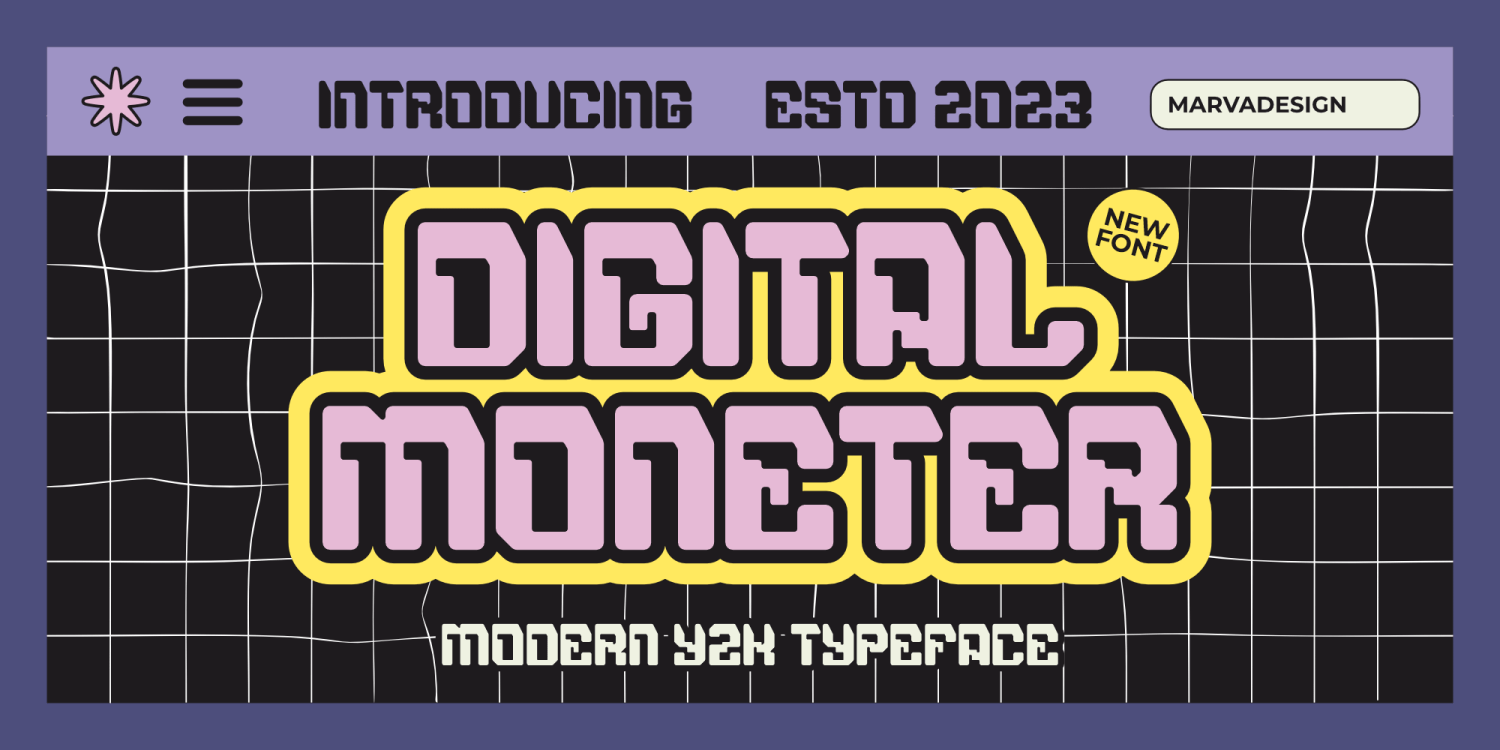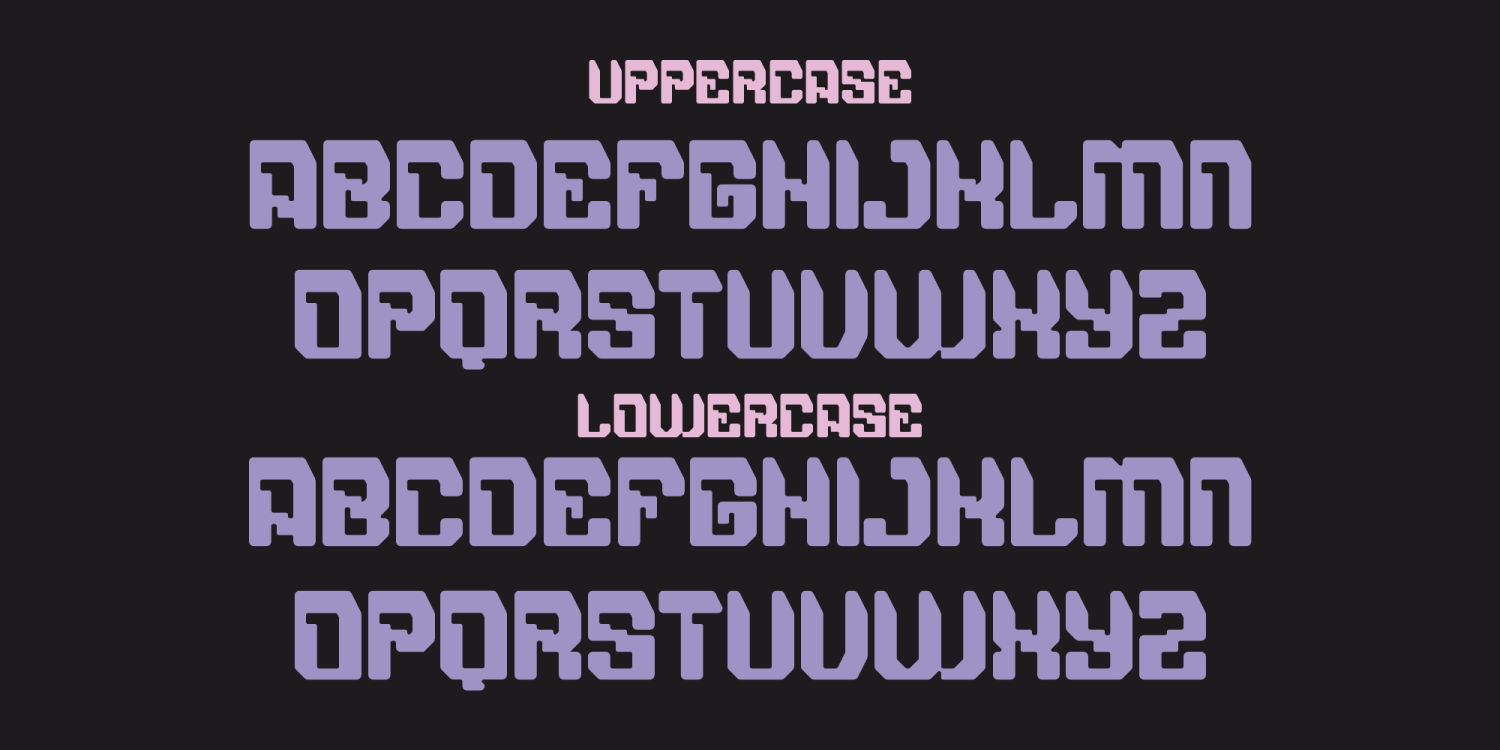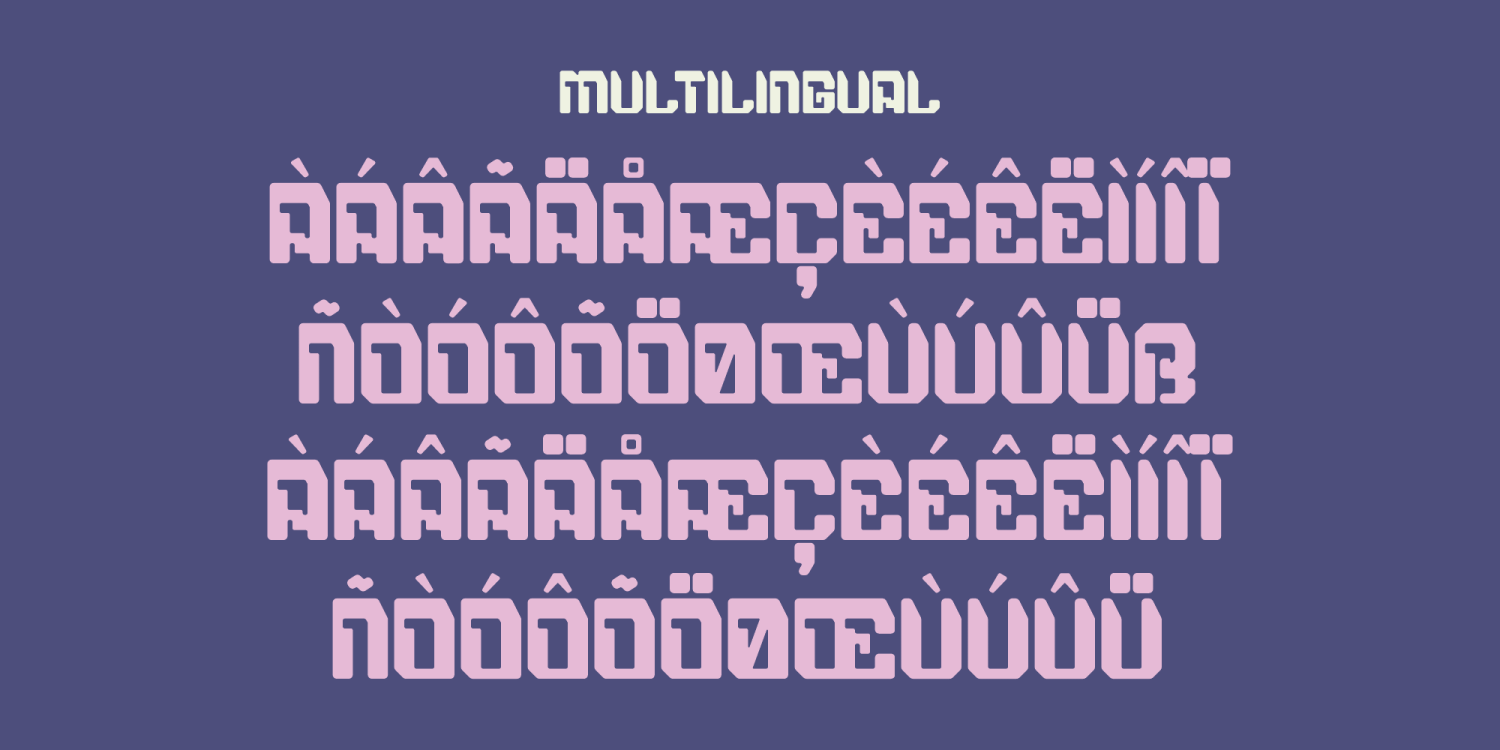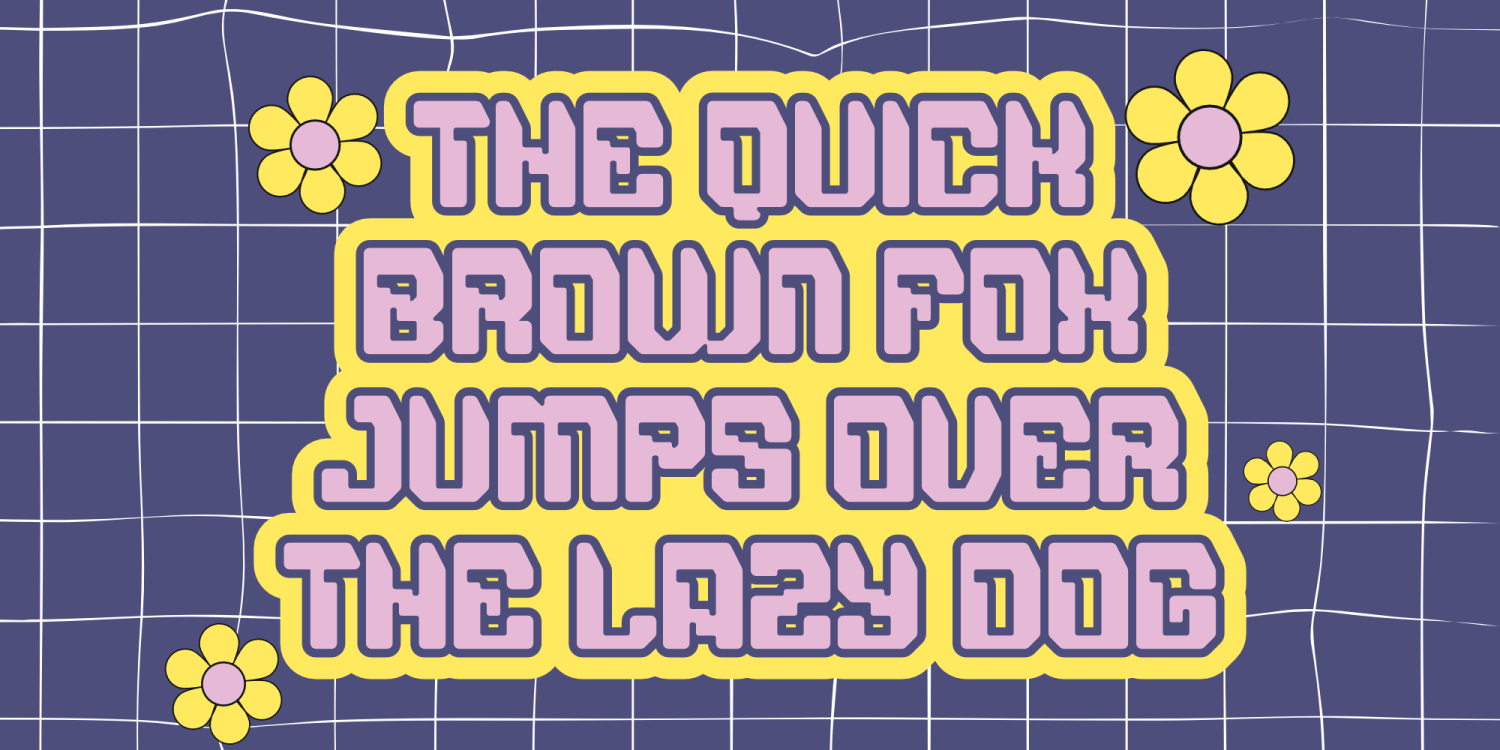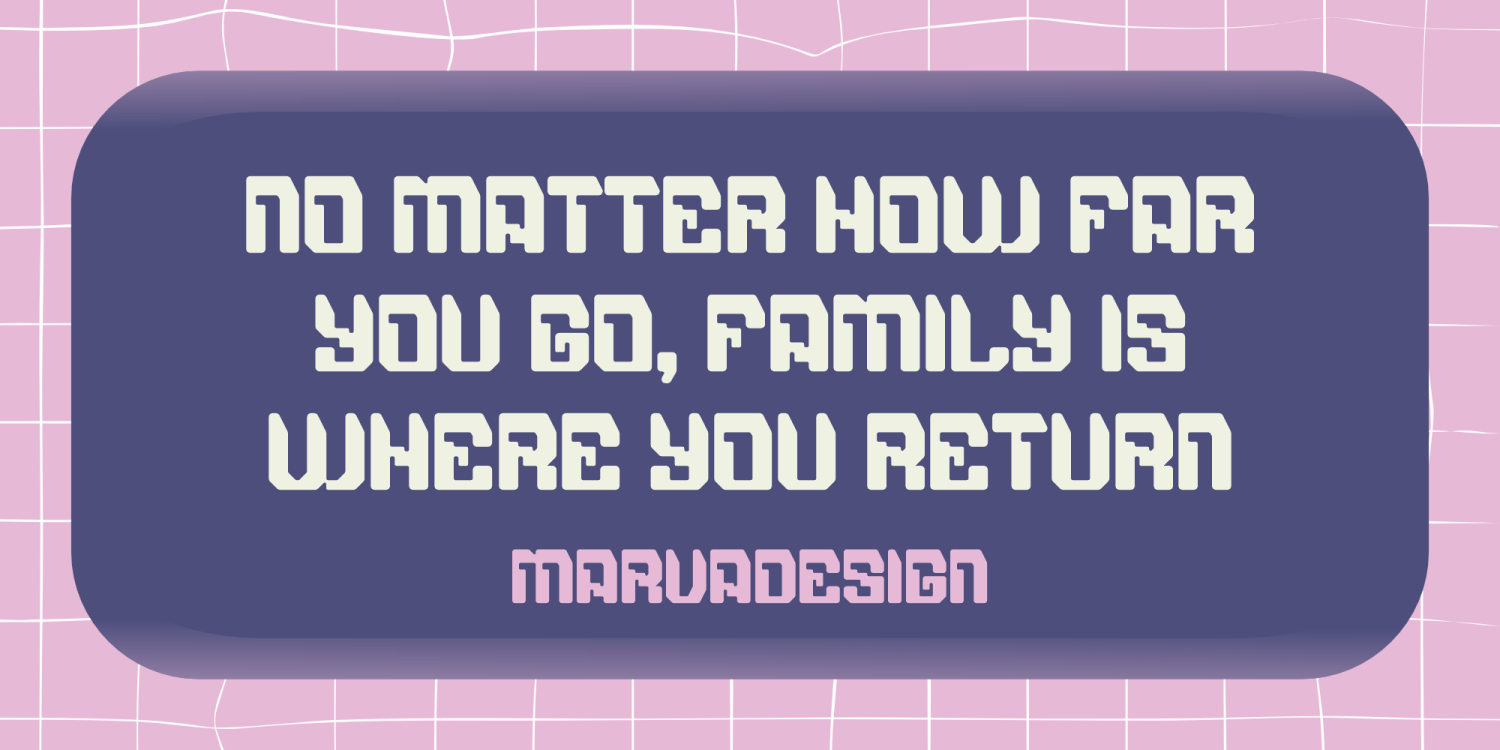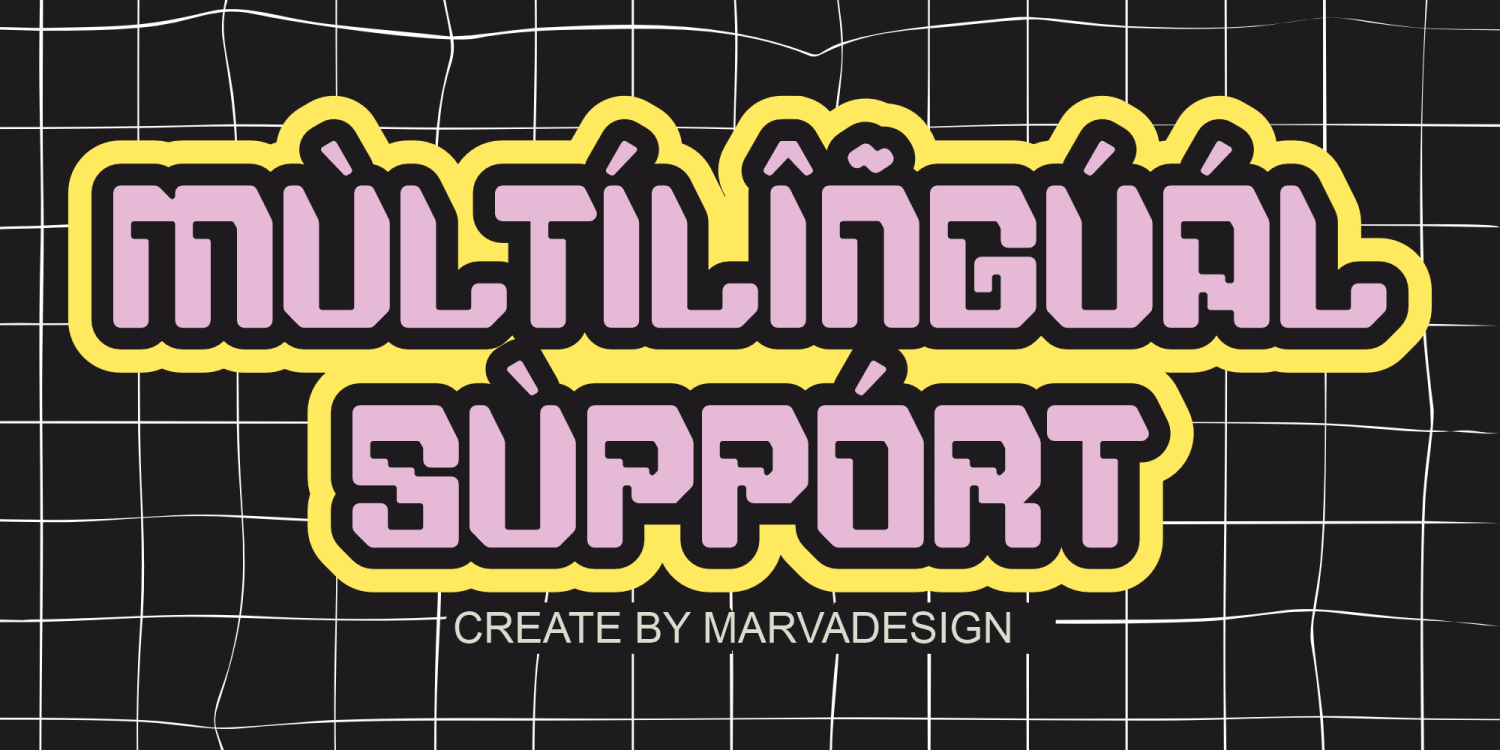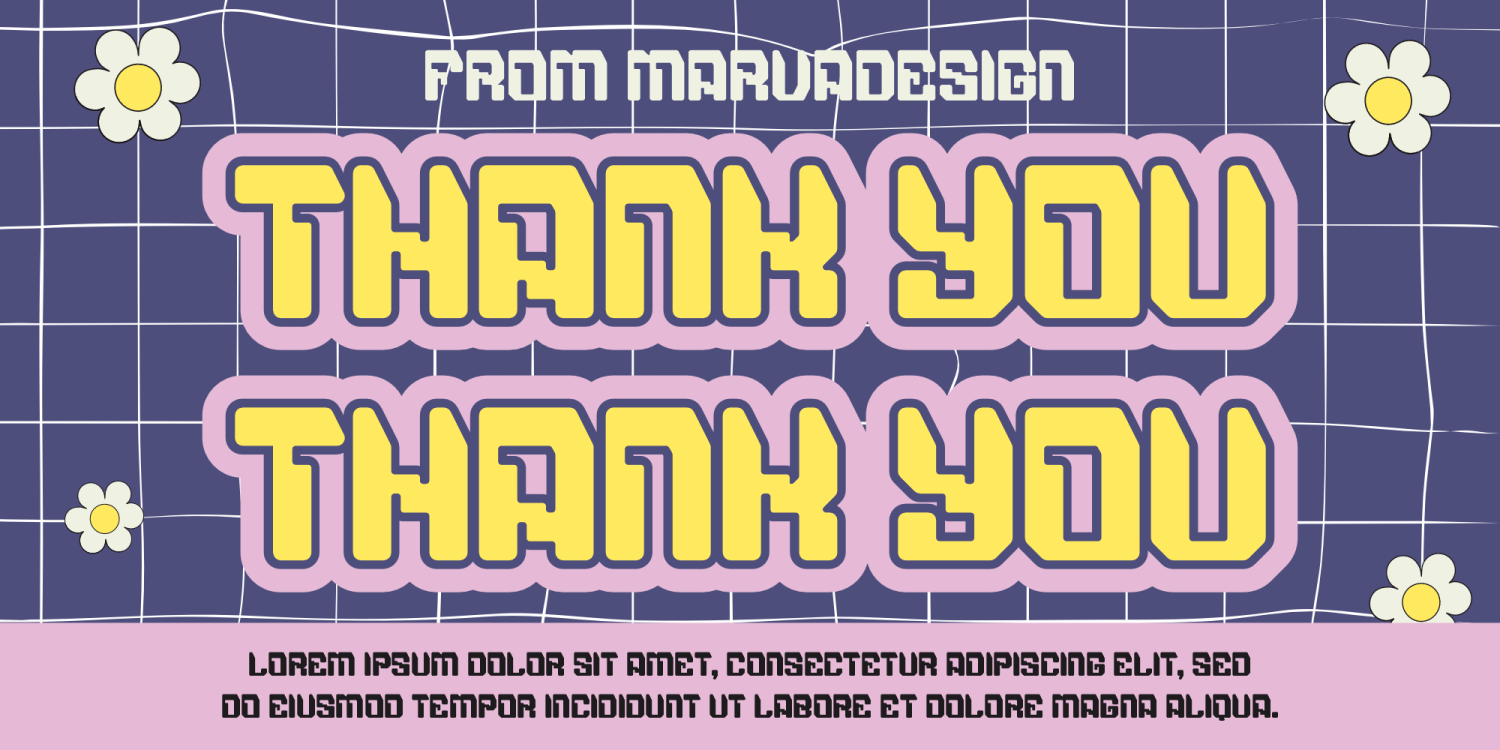
Digital Moneter
Font Family by Marvadesign
Introducing a new font The Digital Moneter font is a bold, modern Y2K-inspired typeface characterized by its thick outlines, rounded corners, and vibrant retro aesthetics. Its playful yet futuristic vibe makes it ideal for projects that aim to evoke nostalgia while maintaining a fresh, innovative look. With a combination of geometric symmetry and soft curves, this font stands out for posters, branding, and creative designs that seek to capture the essence of early digital culture trends. The pastel color palettes and contrasting outlines further emphasize its distinct Y2K identity.